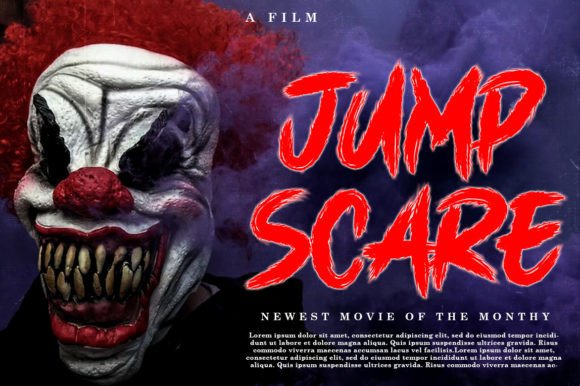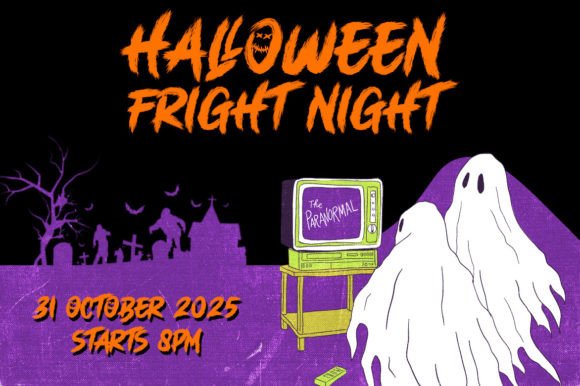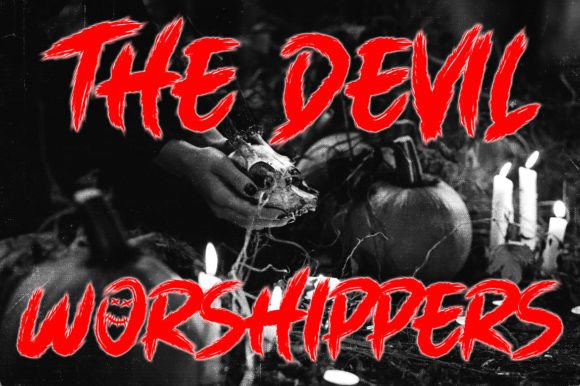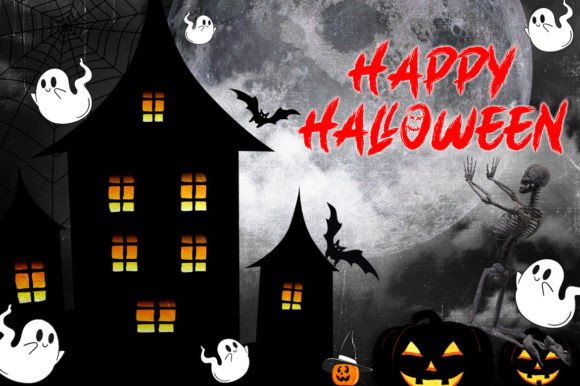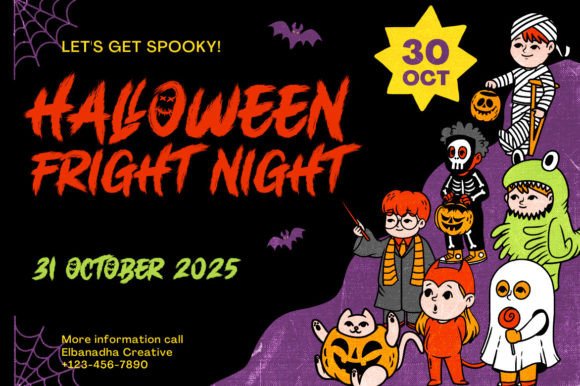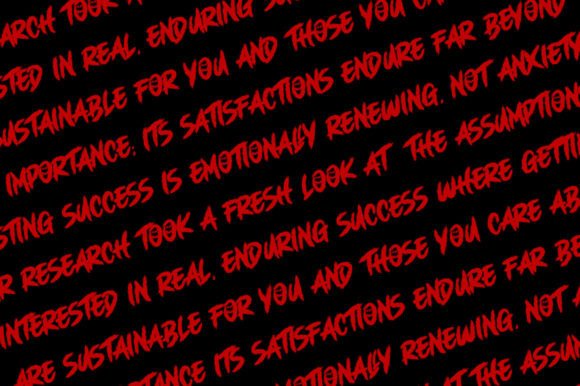
Unleash the Spooky Spirit: A Comprehensive Guide to Halloween Font
Halloween is just around the corner, and what better way to get into the spooky spirit than with a font that’s as creepy as it is cool? Look no further than the Halloween Font, a scary, quirky, and display font that’s perfect for adding a touch of eeriness to your October party invitations, cards, greetings cards, social media posts, and more.
What Makes Halloween Font So Special?
Halloween Font is a one-of-a-kind display font that’s specifically designed to capture the essence of the spookiest night of the year. Its unique and quirky design makes it perfect for adding a touch of whimsy and fun to your Halloween-themed projects. Whether you’re a designer, crafter, or simply someone who loves the holiday, this font is sure to become your go-to choice for all your Halloween needs.
Key Features of Halloween Font
- PUA Encoded: Halloween Font is PUA (Private Use Area) encoded, which means you can access all of the glyphs with ease. This makes it simple to use and edit, even for those who aren’t font experts.
- Creepy and Cool Design: The font’s design is both creepy and cool, making it perfect for Halloween-themed projects. Its quirky and playful style is sure to add a touch of personality to your designs.
- Versatile: Halloween Font is incredibly versatile and can be used on a wide range of projects, from party invitations and cards to social media posts and more.
Uses for Halloween Font
So, what can you use Halloween Font for? The possibilities are endless! Here are a few ideas to get you started:
- Party Invitations: Create spooky and fun party invitations that will set the tone for your Halloween bash.
- Cards and Greetings: Design creepy and cool cards and greetings that will make your friends and family laugh.
- Social Media Posts: Add a touch of Halloween spirit to your social media posts with this font.
- Crafting Projects: Use Halloween Font to add a personal touch to your crafting projects, such as DIY decorations, signs, and more.
Tips for Using Halloween Font
Here are a few tips for using Halloween Font:
- Experiment with Different Sizes: Try out different font sizes to see what works best for your project.
- Play with Colors: Don’t be afraid to experiment with different colors to add an extra touch of spookiness to your designs.
- Combine with Other Fonts: Try pairing Halloween Font with other fonts to create a unique and eye-catching design.